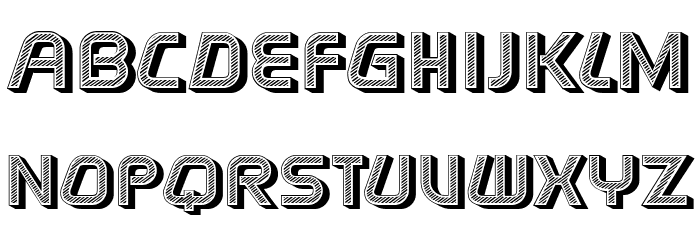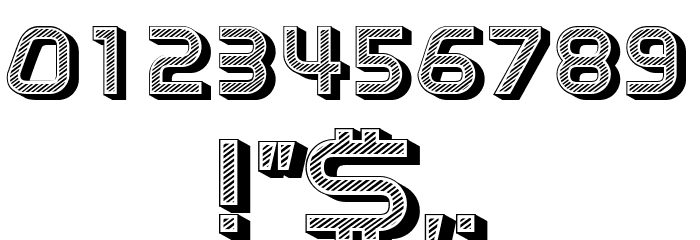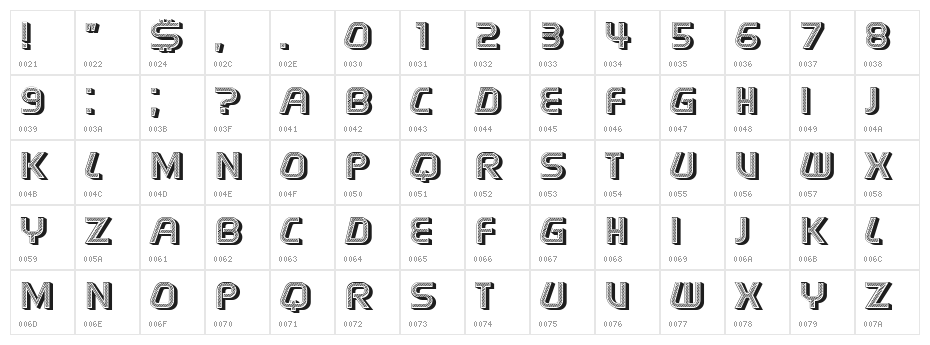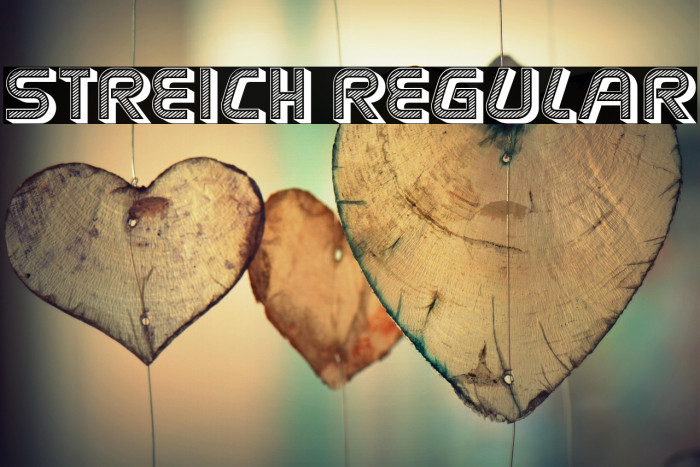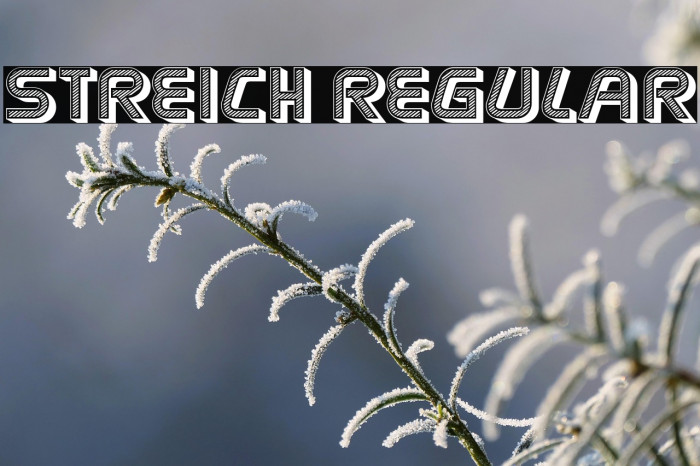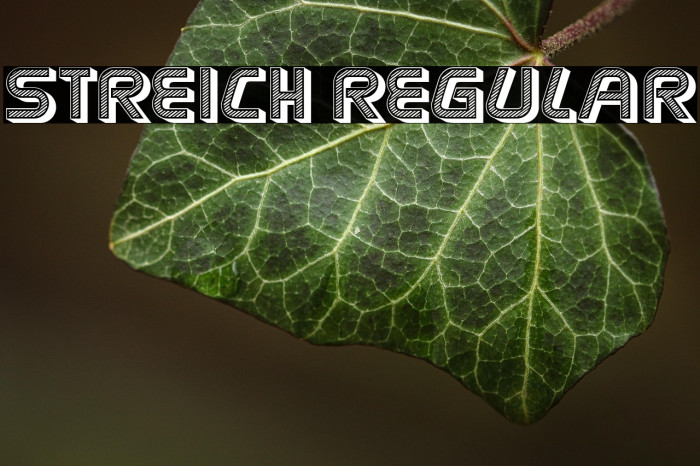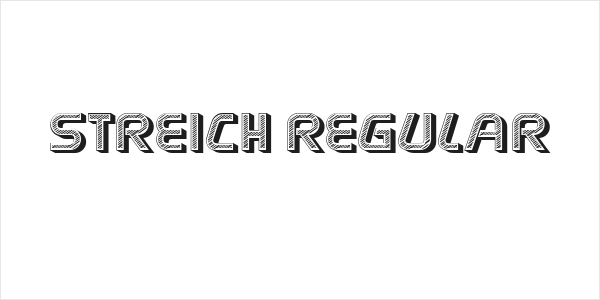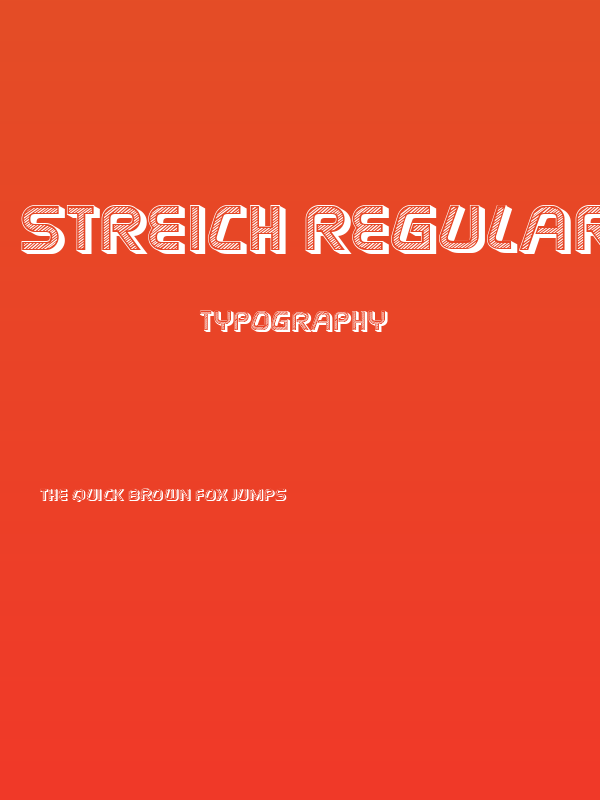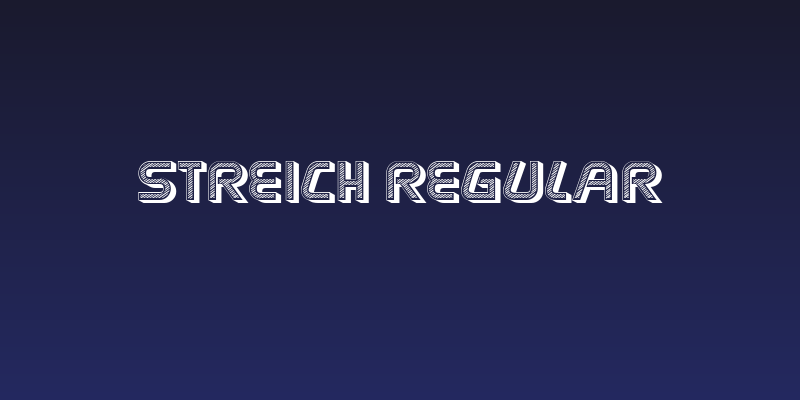
Streich Regular Font
This font features a bold, three-dimensional appearance with a distinct diagonal stripe pattern filling each character. The letters are uppercase, with a strong geometric structure that gives them a modern and dynamic feel. The numbers and special characters follow the same design, ensuring consistency across all elements. The font's unique style makes it stand out, offering a playful yet professional look. The shadow effect adds depth, making it suitable for eye-catching designs.
A bold, 3D font with diagonal stripes and a modern geometric style.
- Proposed Projects: Ideal for posters, logos, headlines, and any design requiring a striking and modern aesthetic.